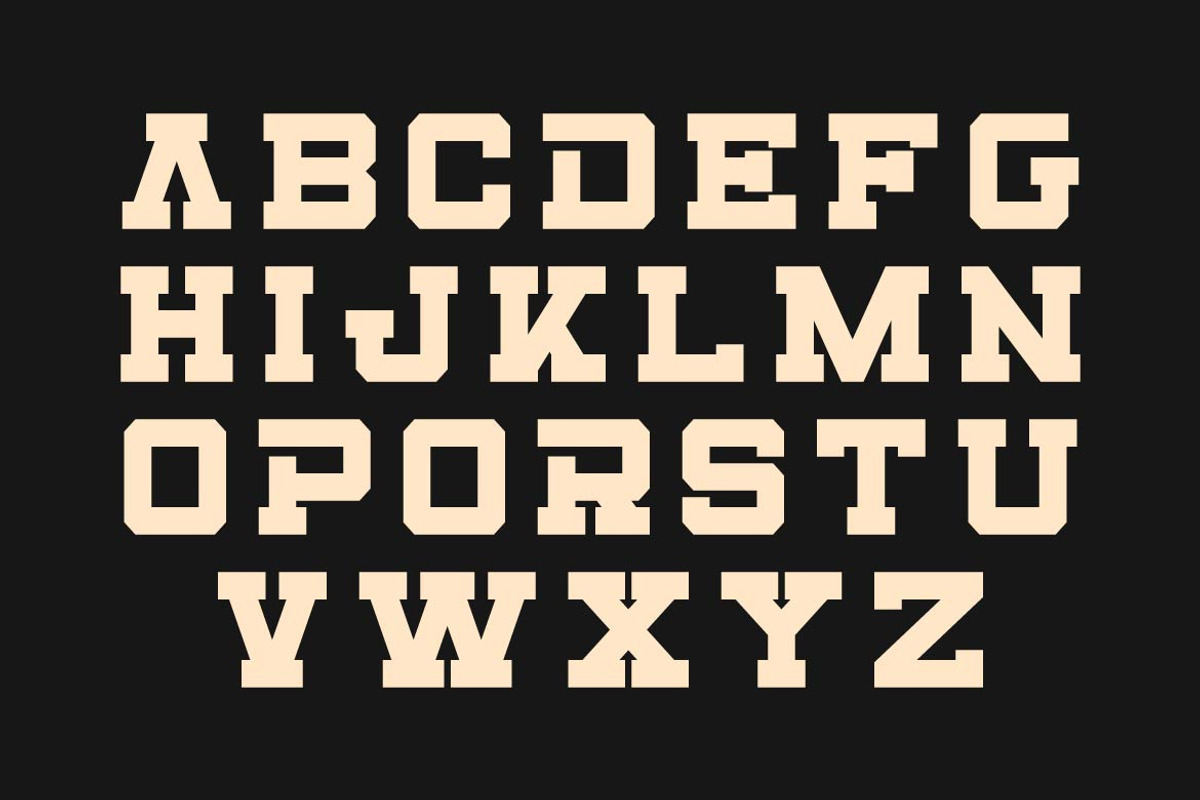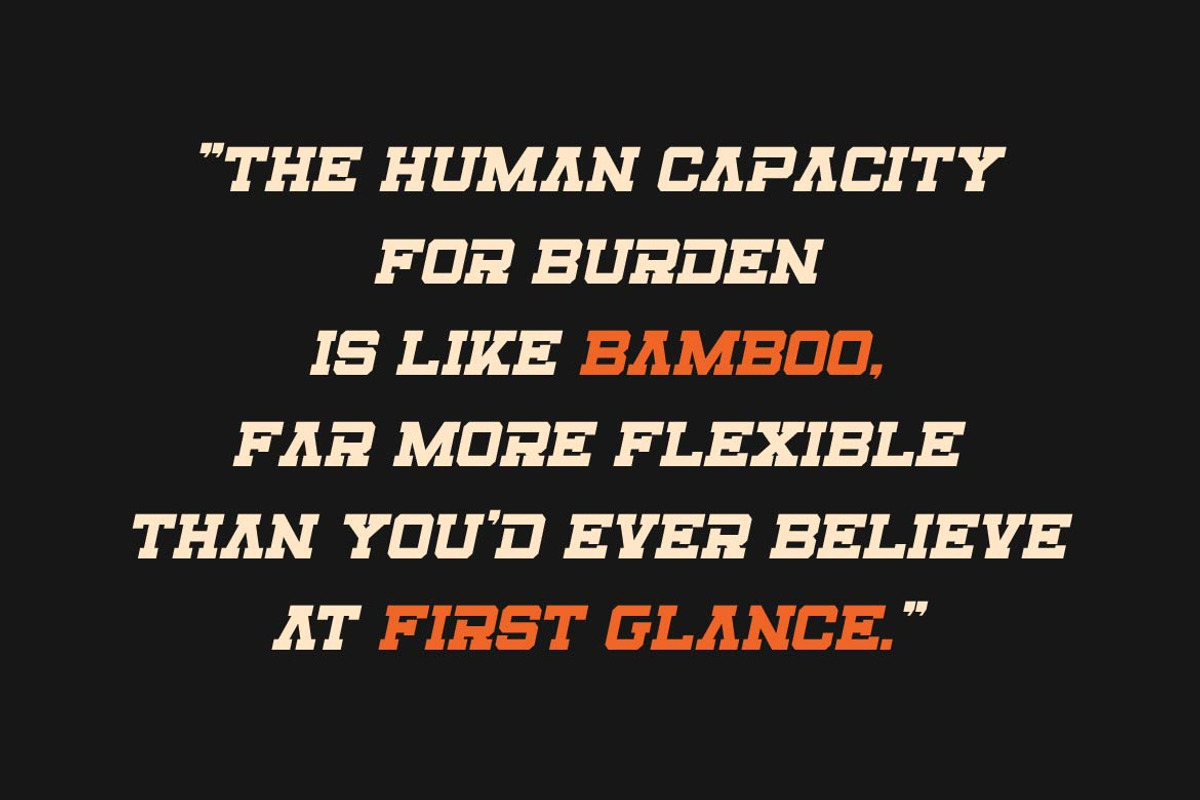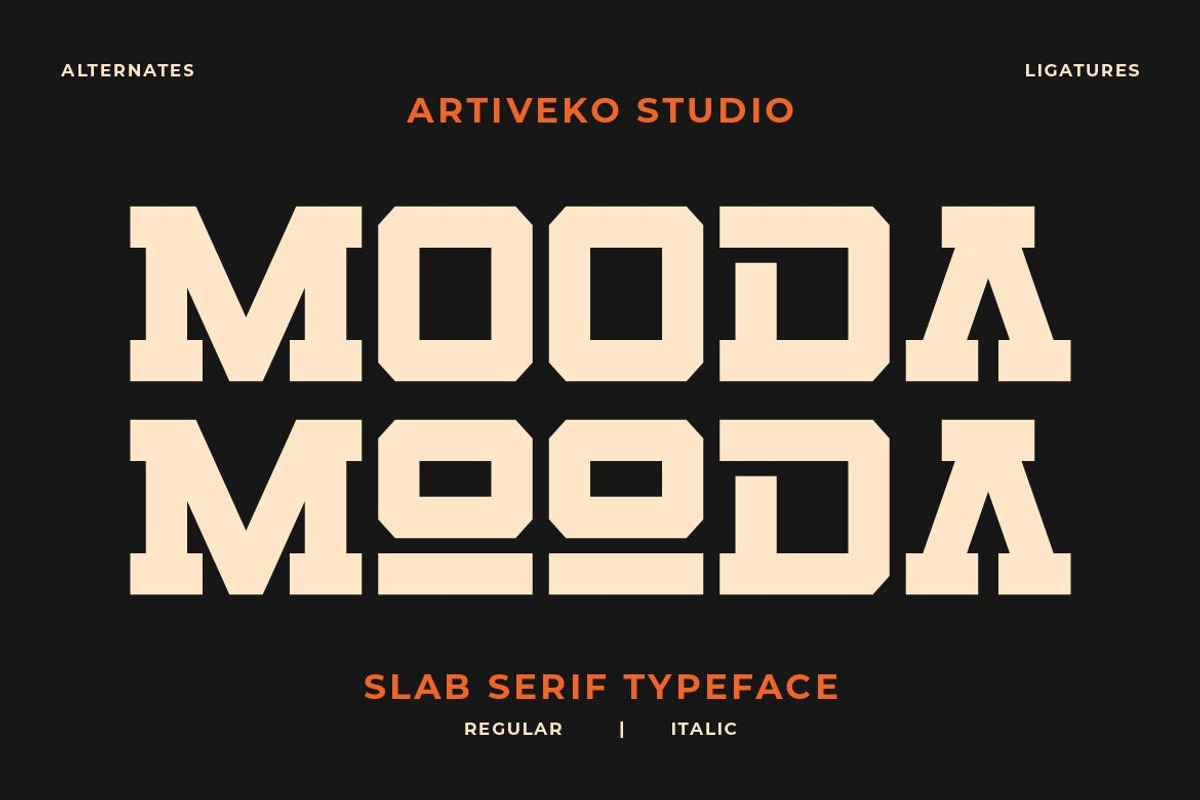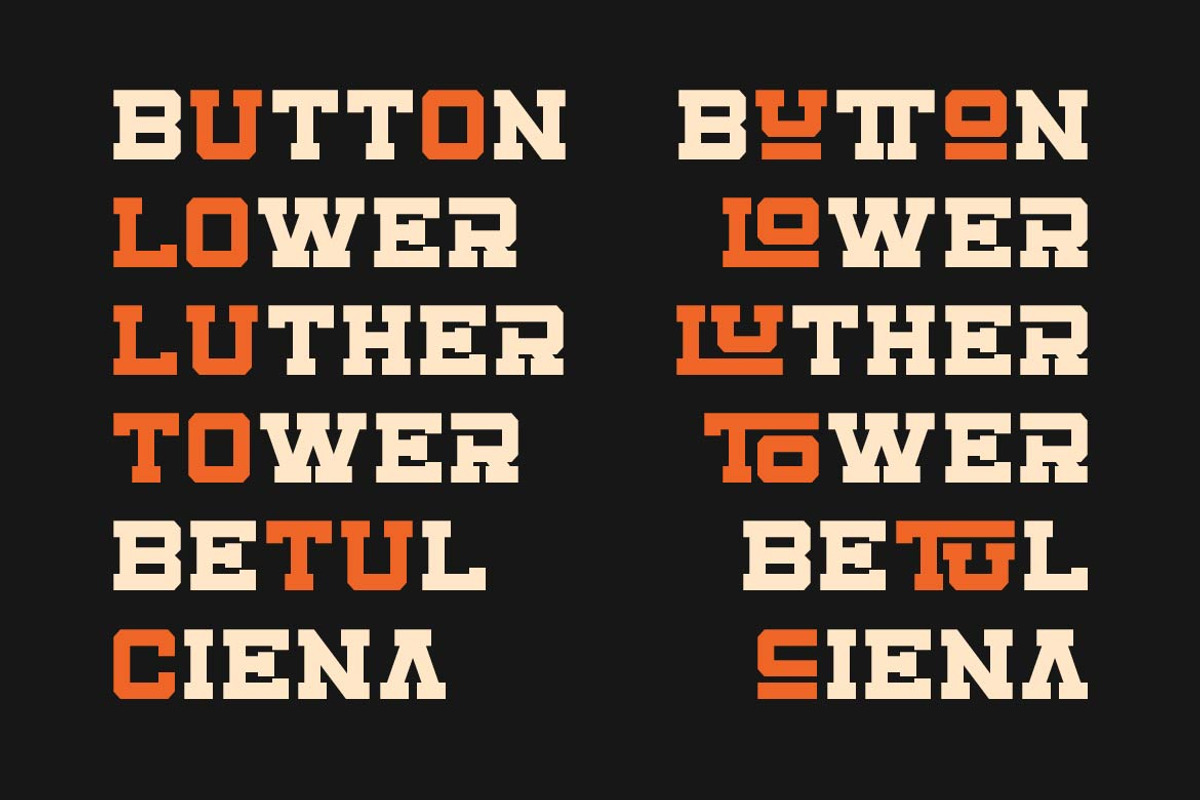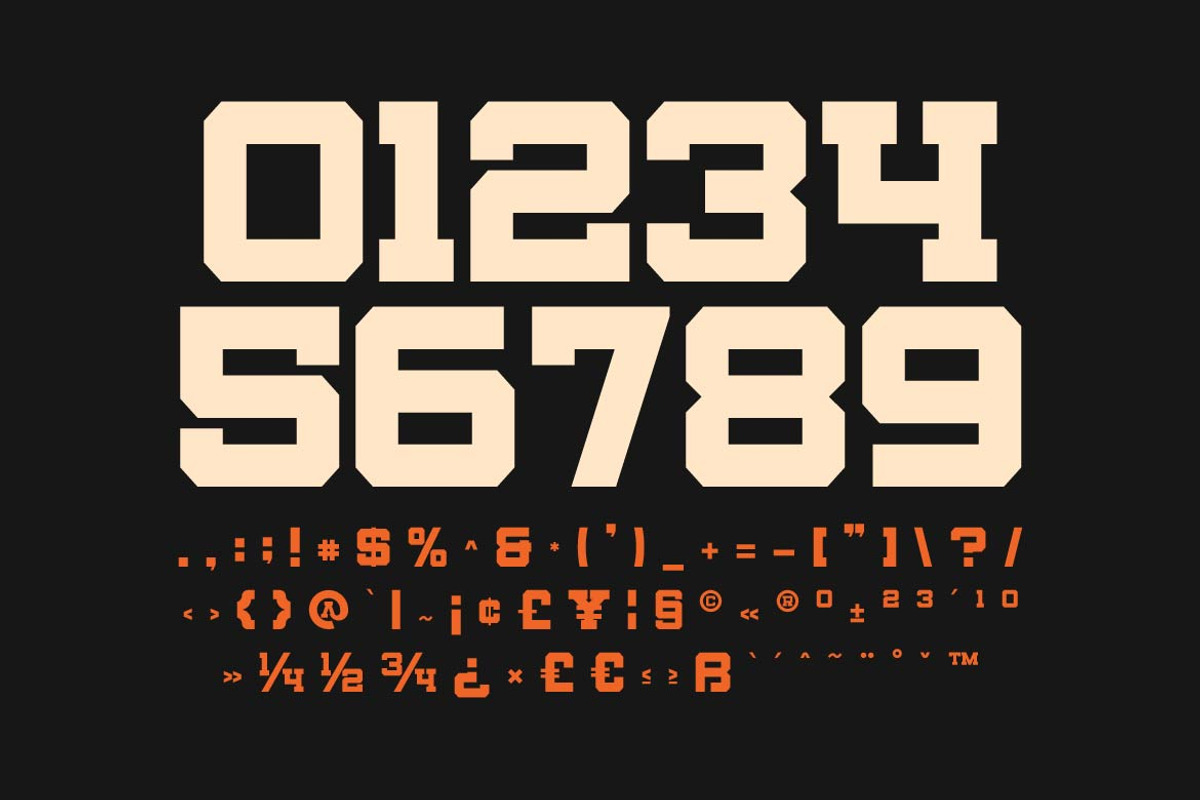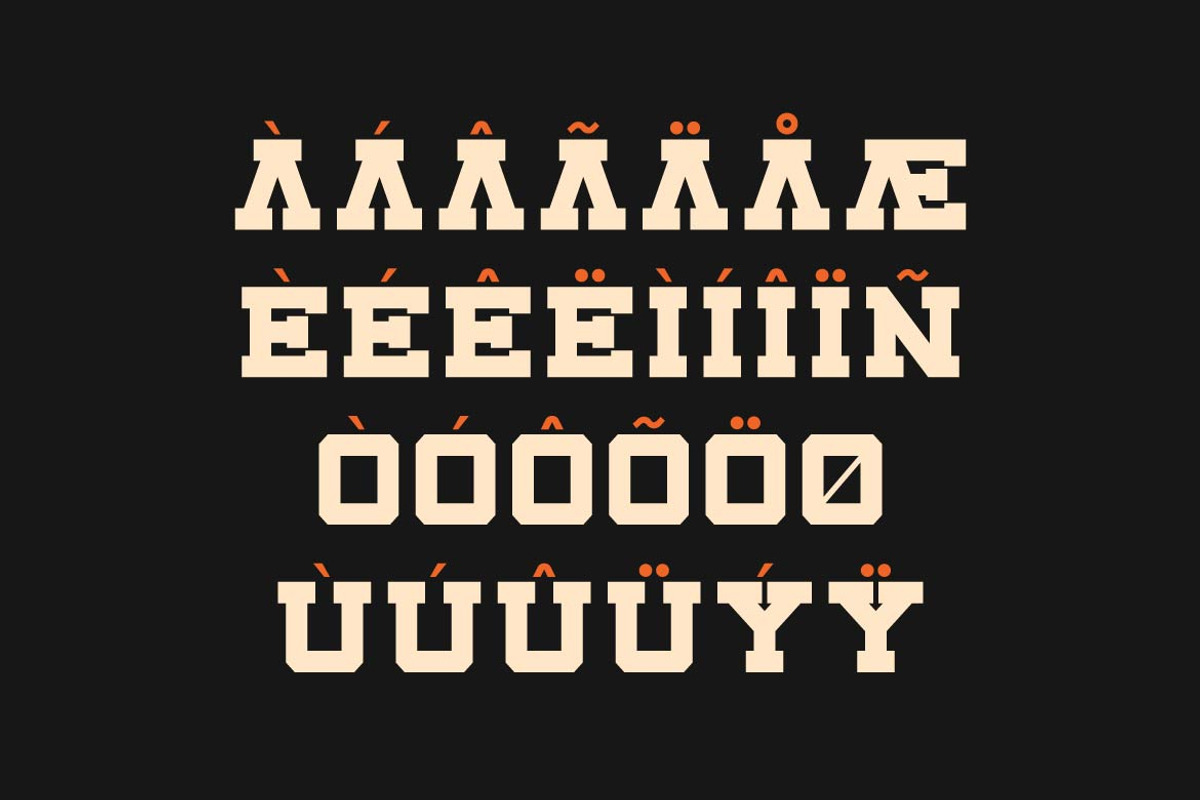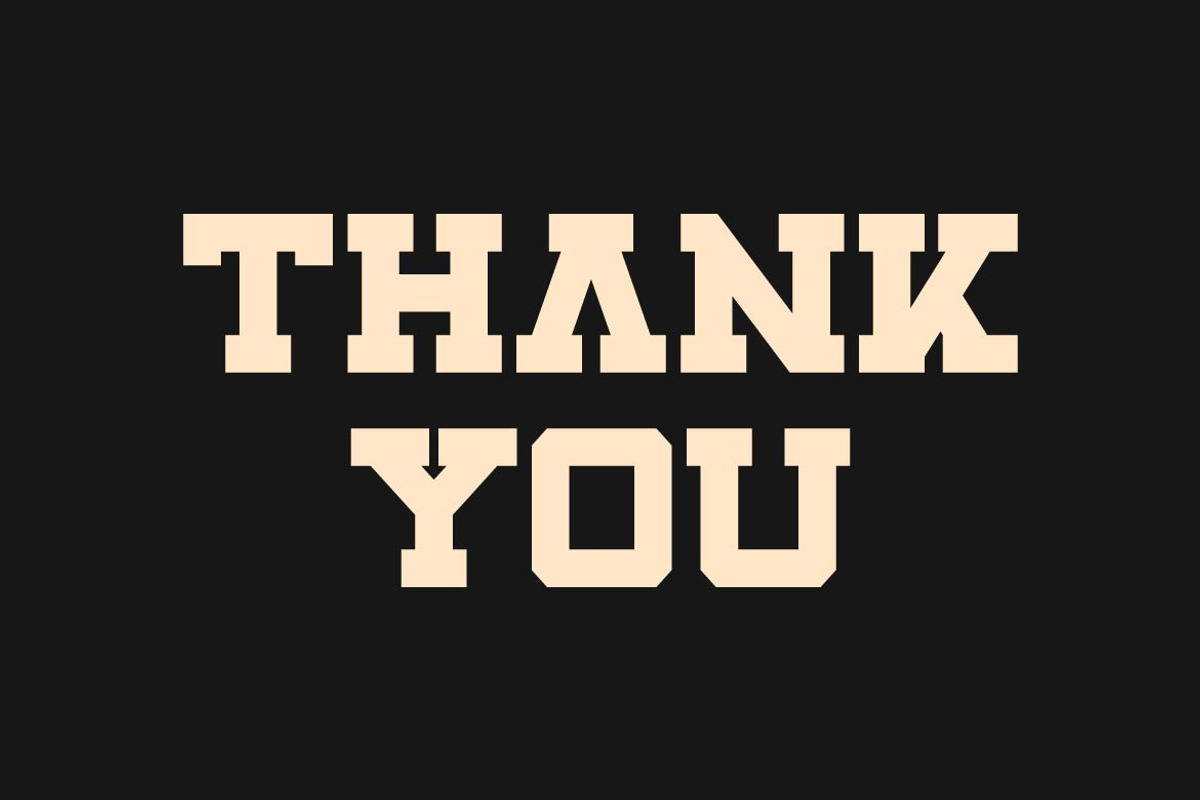
Mooda – Bold Slab Serif Font
Mooda is a bold slab serif typeface designed to deliver strength, stability, and strong visual impact. With thick strokes, solid slab serifs, and confident letterforms, Mooda creates a powerful presence in any design.